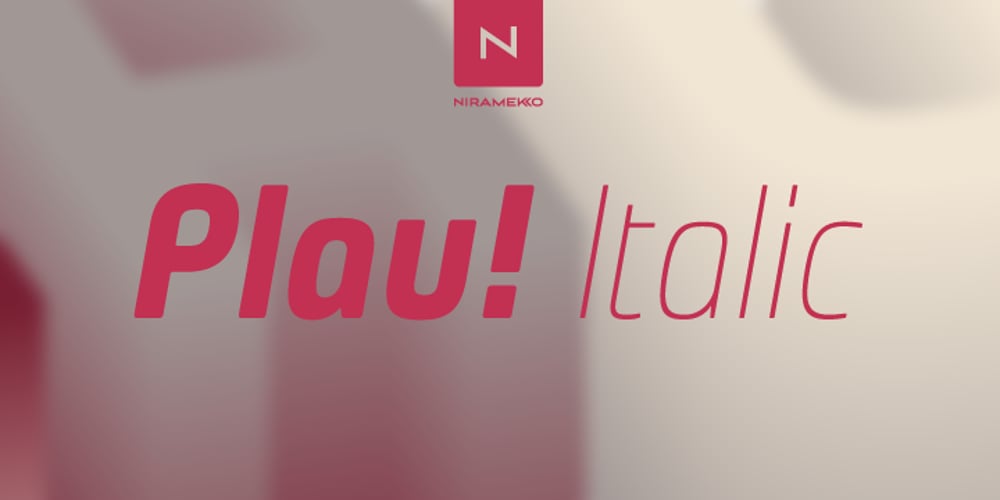
Plau Italics Font Family was designed by Rodrigo Saiani and published by Plau. Plau Italics contains 6 styles and family package options. Futurist italic typeface from the programming era, Plau is a sans-serif with rounded corner personality and interestingly deliberate lettershapes. Comfortable in headlines, reads surprisingly well in longer passages of text. Includes the following OpenType features: OT All Small Caps, Fraction, Proportional/Tabular Oldstyle and lining figures, subscript and superscript numbers.